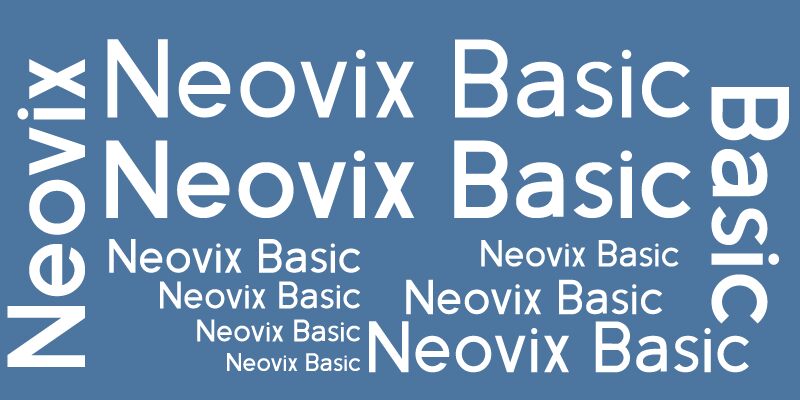
Neovix Basic, designed by Erion Dyrmishi in 2013, is a free geometric sans serif with slim strokes and dramatically open proportions. Broad circular forms meet sharp diagonals, and the low crossbars and clean horizontal cuts give the lettering a sleek architectural profile.
Editorial headlines are its strongest role, especially for architecture, interiors, or contemporary culture coverage. The restrained weight feels refined rather than fragile on the page. Fashion branding, event posters, and album covers can also use its wide, precise shapes to suggest a modern gallery, boutique, or design studio setting.